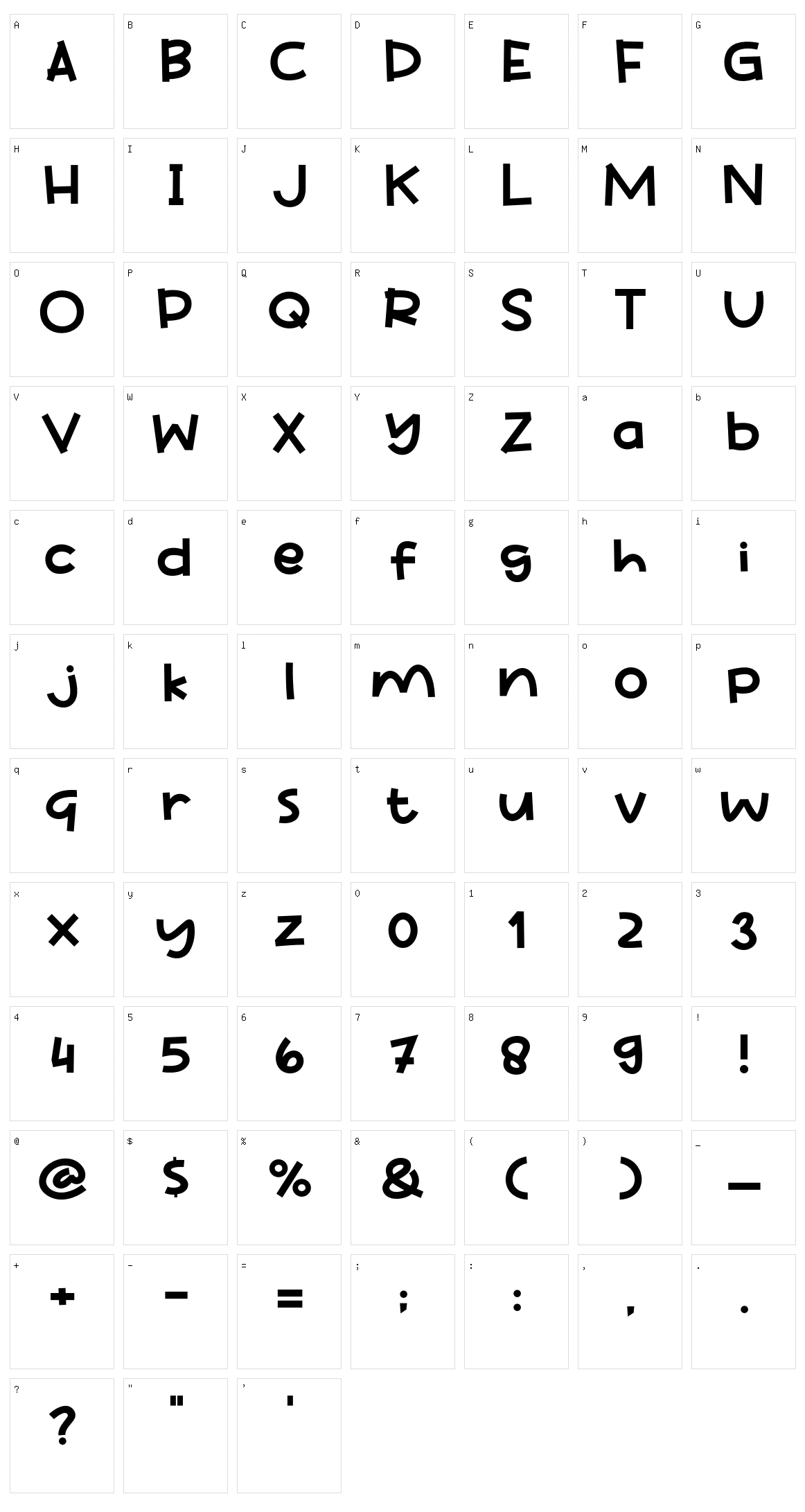
The free font Crispy Samosa is carefully designed by Khurasan, showcasing a thoughtful balance of creativity and usability and falls under the Cartoon font style. When you download the ZIP file, it contains only 475.41 KB of font files, making it lightweight and quick to download. Please review the license details below to understand permitted usage and distribution rights. If license information is not available, we recommend using this font for personal projects only or contacting the author directly for commercial usage permissions.